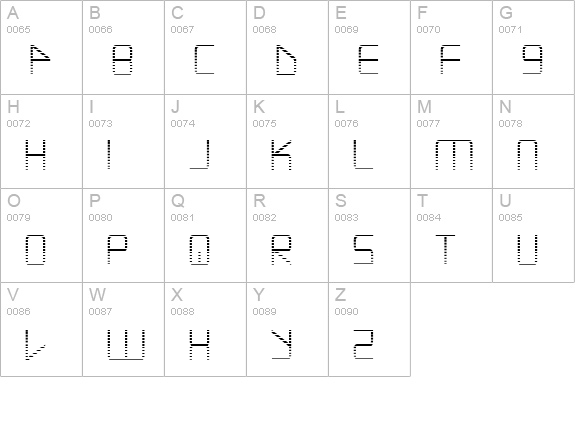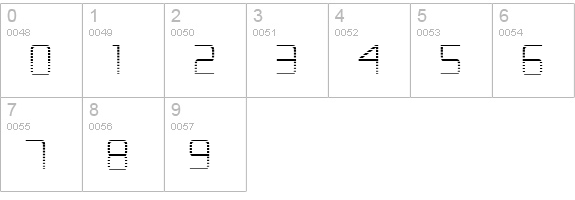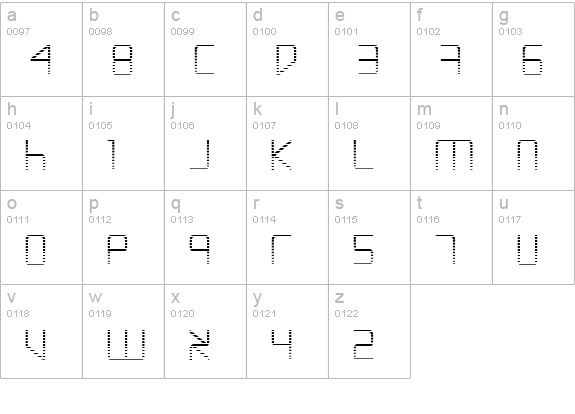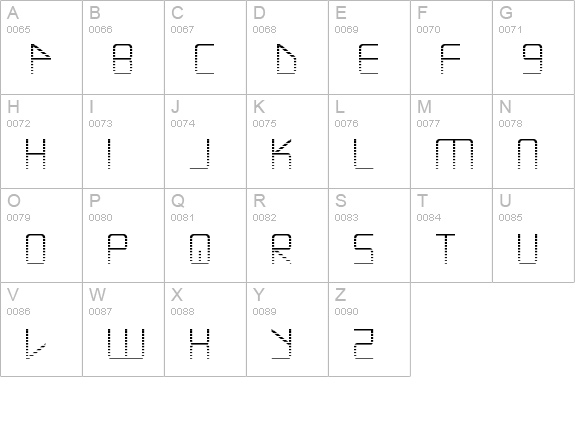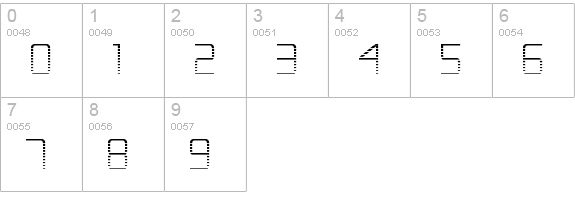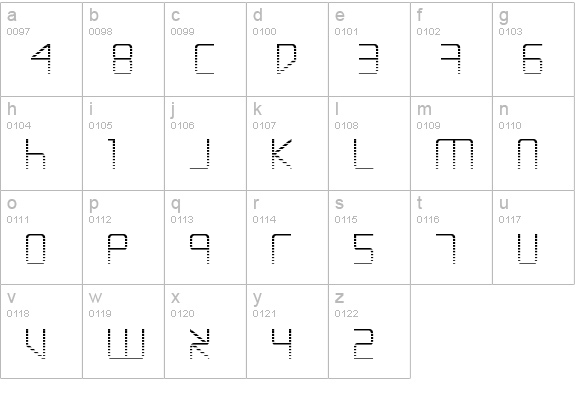
Escape Artist Gradient font is a stunning display typeface that exudes creativity and sophistication. With its unique gradient effect, this font is perfect for adding a touch of modernity to your designs. Each character is beautifully crafted with intricate details that captivate the eye and draw attention effortlessly. This font is ideal for a wide range of projects, from branding to social media graphics, posters, and more. Its versatility allows you to create eye-catching designs that stand out from the crowd. Whether you're looking to add a bold statement or a subtle touch of elegance, Escape Artist Gradient font has you covered. The best part? Escape Artist Gradient font is available for free download at FontsMarket.com. So go ahead and unleash your creativity with this stunning typeface that is sure to elevate your designs to new heights.